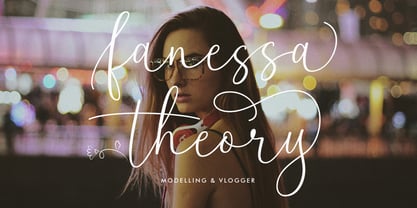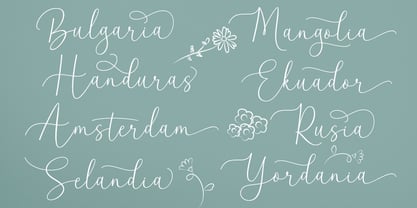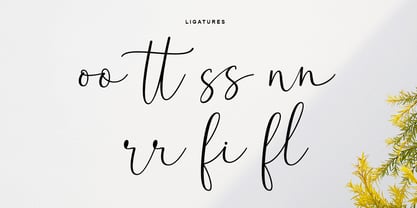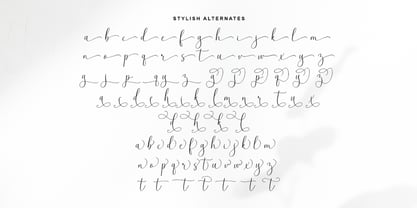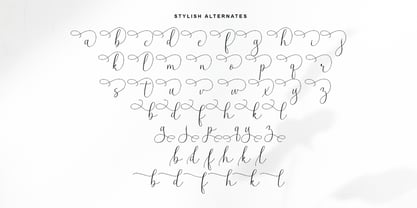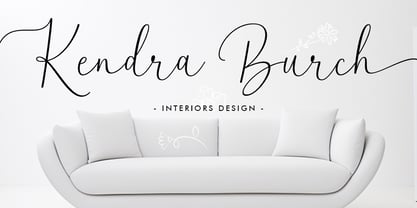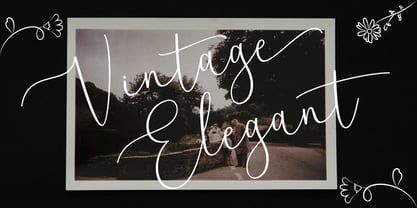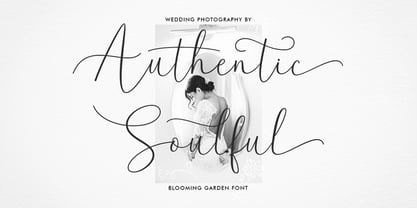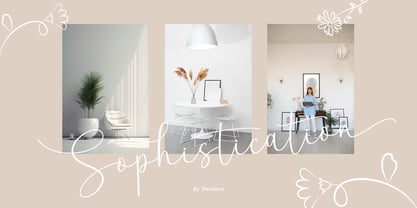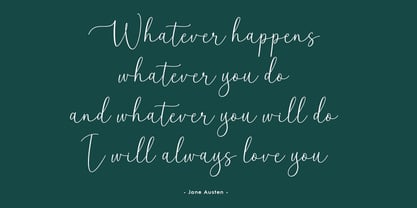
Blooming Garden
by Rotterlab Studio
The Blooming Garden Font Family was designed by Sidiq Fahmi and published by Rotterlab Studio. Blooming Garden contains 2 styles and family package options.
Blooming Garden is an elegant calligraphy font with smooth, flowing lines and soft curves, crafted to bring a sense of luxury and refinement to any design. Its combination of timeless elegance and contemporary style makes it the perfect choice for branding, stylish wedding invitations, and premium print materials. Whether you're creating a logo, designing an invitation, or working on upscale promotional materials, Blooming Garden adds a touch of sophistication and beauty to your project.
Feature:
- Uppercase and Lowercase
- Numerals & Punctuations
- Alternates & Ligatures
- Multilingual Support